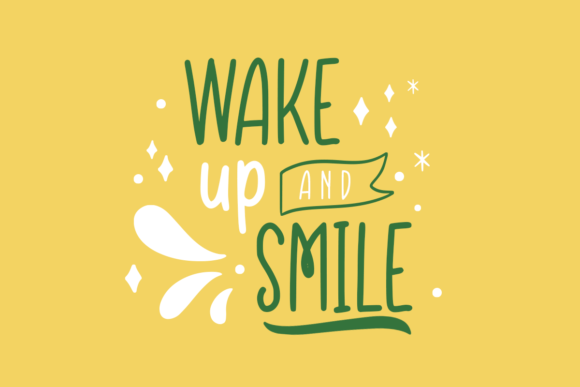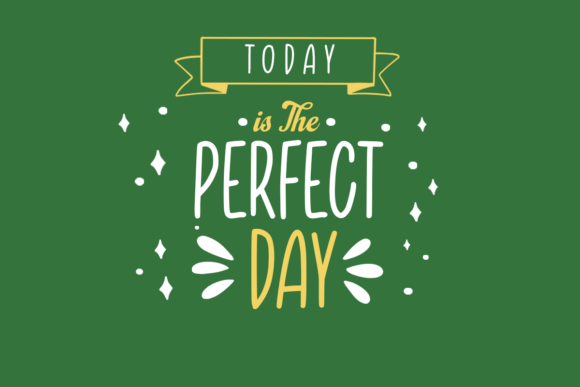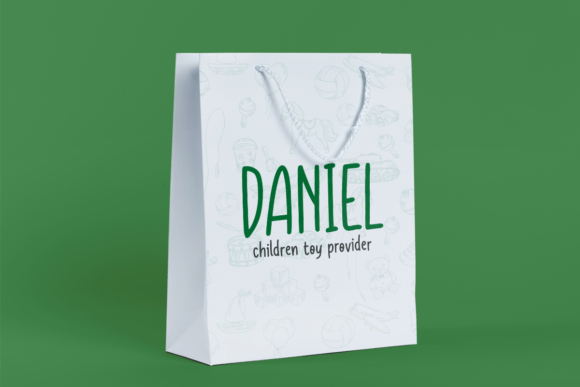
Introduction to Mongale Font
Mongale captures the essence of hand-drawn fonts with its natural and organic feel.
Whether you’re designing logos, branding, social media graphics, or anything else, Mongale is the perfect choice for adding a touch of playfulness and whimsy to your designs Its handwritten style adds a personal touch that will make your designs stand out and capture your audience’s attention.
Key Features of Mongale Font
Why Choose Mongale Font?
Mongale Font offers exceptional quality and versatility, making it a valuable addition to your design toolkit. Whether you’re creating for personal projects or commercial use, Mongale Font delivers professional results.